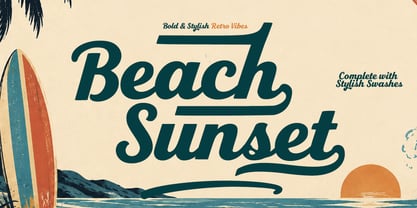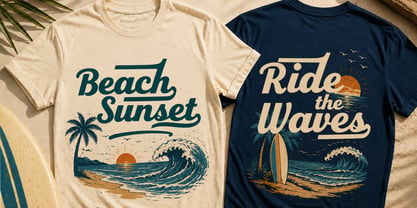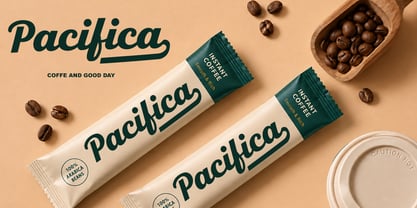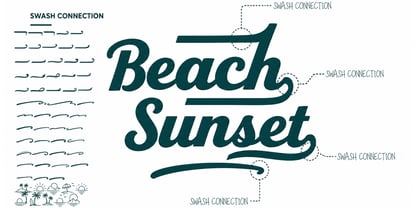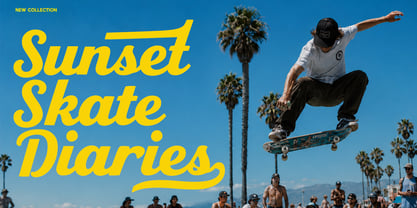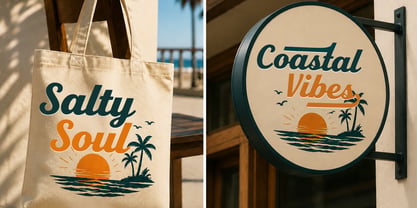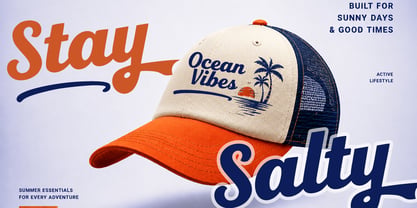
Beach Sunset
by Cocodesign
The Beach Sunset Font Family was designed by Muhammad Zaini and published by Cocodesign. Beach Sunset contains 3 styles and family package options. More about this family
Beach Sunset is a bold and stylish retro script font that captures the essence of laid-back coastal vibes, vintage surf culture, and warm summer sunsets. Its flowing letterforms showcase smooth curves, strong strokes, and expressive details, resulting in a confident yet relaxed aesthetic. The package includes extra swash elements that add decorative flourishes and stylish finishing touches. These swashes are provided separately, allowing for greater design flexibility as they can be placed freely with the lettering. This font is perfect for a variety of applications, including t-shirt designs, beach branding, logos, posters, packaging, signage, stickers, social media graphics, merchandise, and retro summer artwork.
Designers: Muhammad Zaini
Foundry: Cocodesign